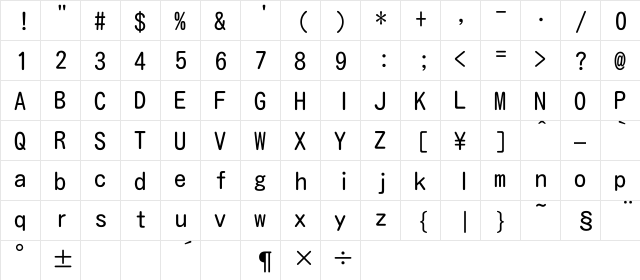
MotoyaLMaru W3 mono Font Preview
MotoyaLMaru W3 mono
Design Context for MotoyaLMaru Typeface
MotoyaLMaru brings the precise, column-aligned rhythm of monospaced typography to designs that value technical clarity and systematic order.
Pro Tip: Use MotoyaLMaru with slightly increased line-height for extended reading — fixed-width spacing can feel dense in longer passages without extra breathing room.